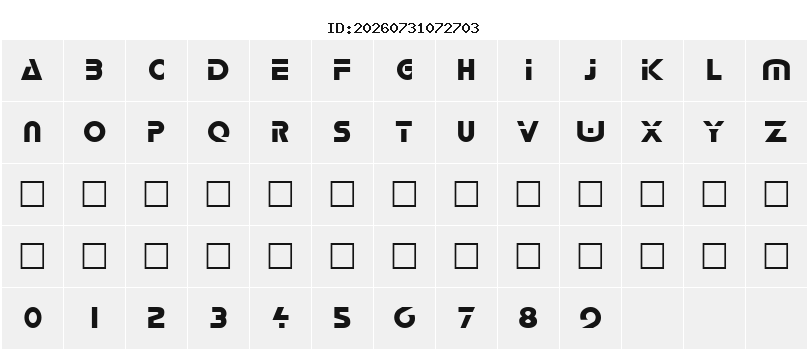
About Linker.ttf
Linker.ttf is a modern, elegant sans-serif font designed for ultimate readability and visual harmony. Perfect for branding, headlines, web design, and print materials.